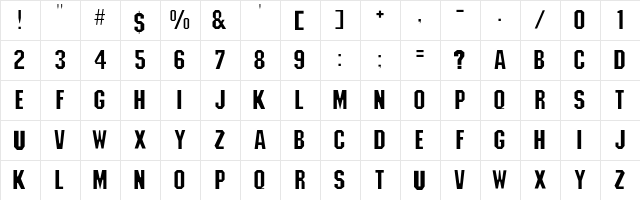
Strathmelli-Lig Regular
Design Context for Strathmelli-Lig Typeface
Strathmelli-Lig takes a measured approach to typography — its balanced proportions and neutral character make it a reliable workhorse for both digital and print work.